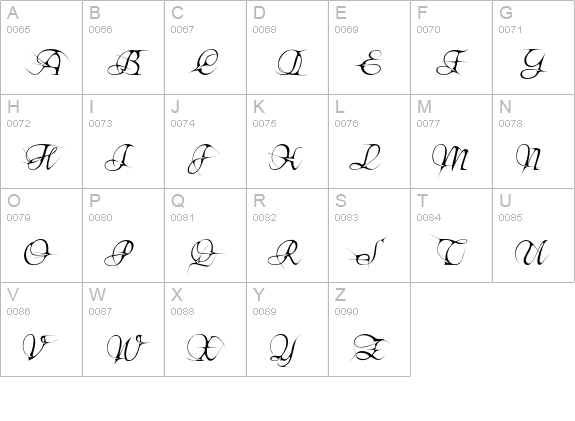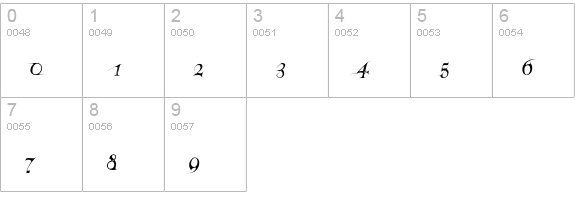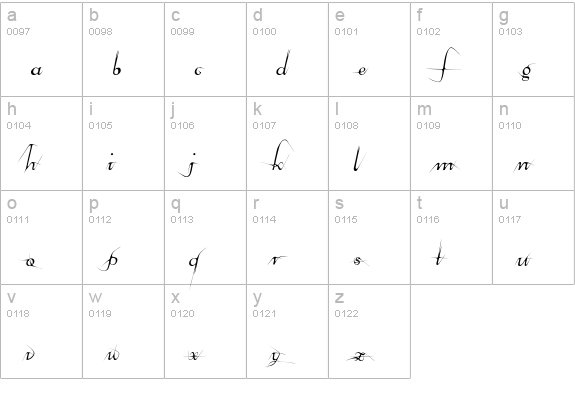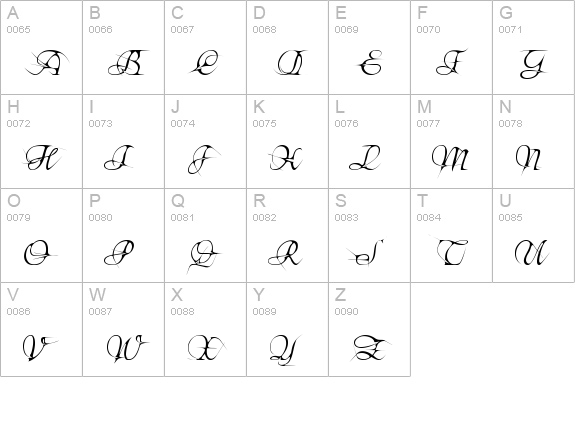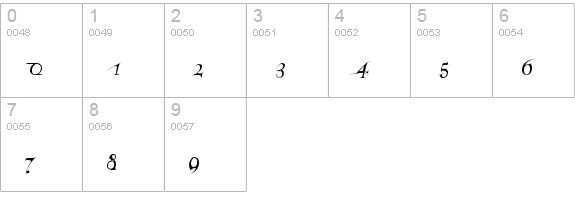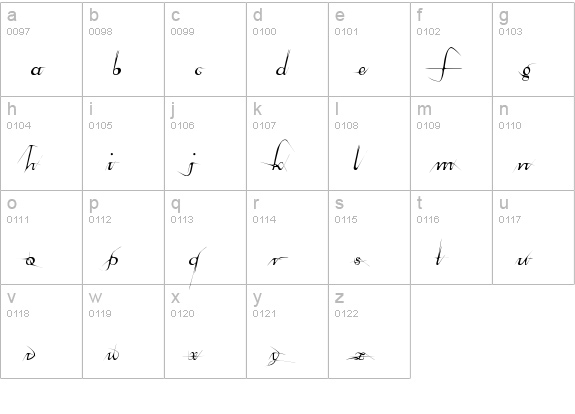
AraneaEF-Regular Font Details
AraneaEF-Regular is the standard, neutral variant in the AraneaEF typeface family \xE2\x80\x94 well suited to general body text, paragraphs, and standard typographic work.
AraneaEF-Regular is a versatile and elegant font that is perfect for a wide range of design projects. This modern typeface features sleek lines and a clean, sophisticated look that will elevate any design it is used in. Whether you are creating a logo, website, poster, or any other design project, AraneaEF-Regular is sure to make a stylish statement. The best part about AraneaEF-Regular is that it is free to download at FontsMarket.com. This means that you can easily access this high-quality font without having to spend a dime. With its timeless design and professional appeal, AraneaEF-Regular is a must-have addition to any designer's toolkit. Download it today and start creating stunning designs with ease!